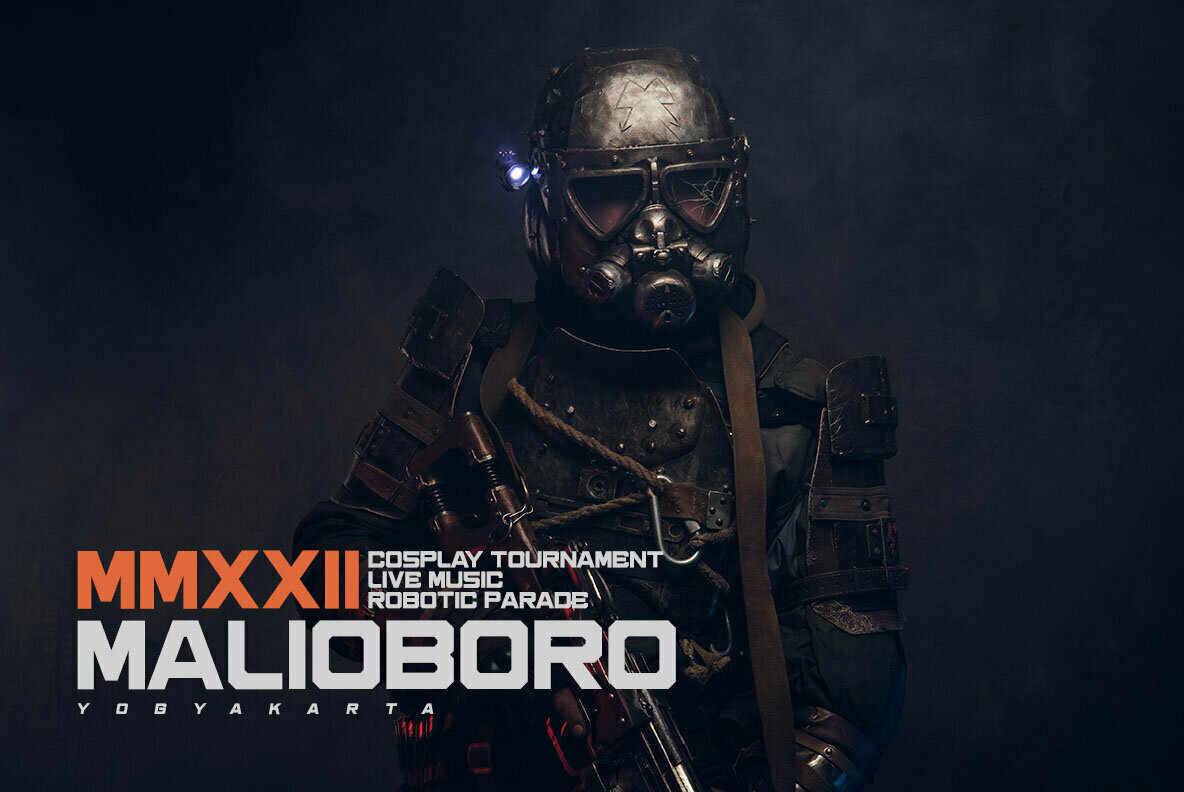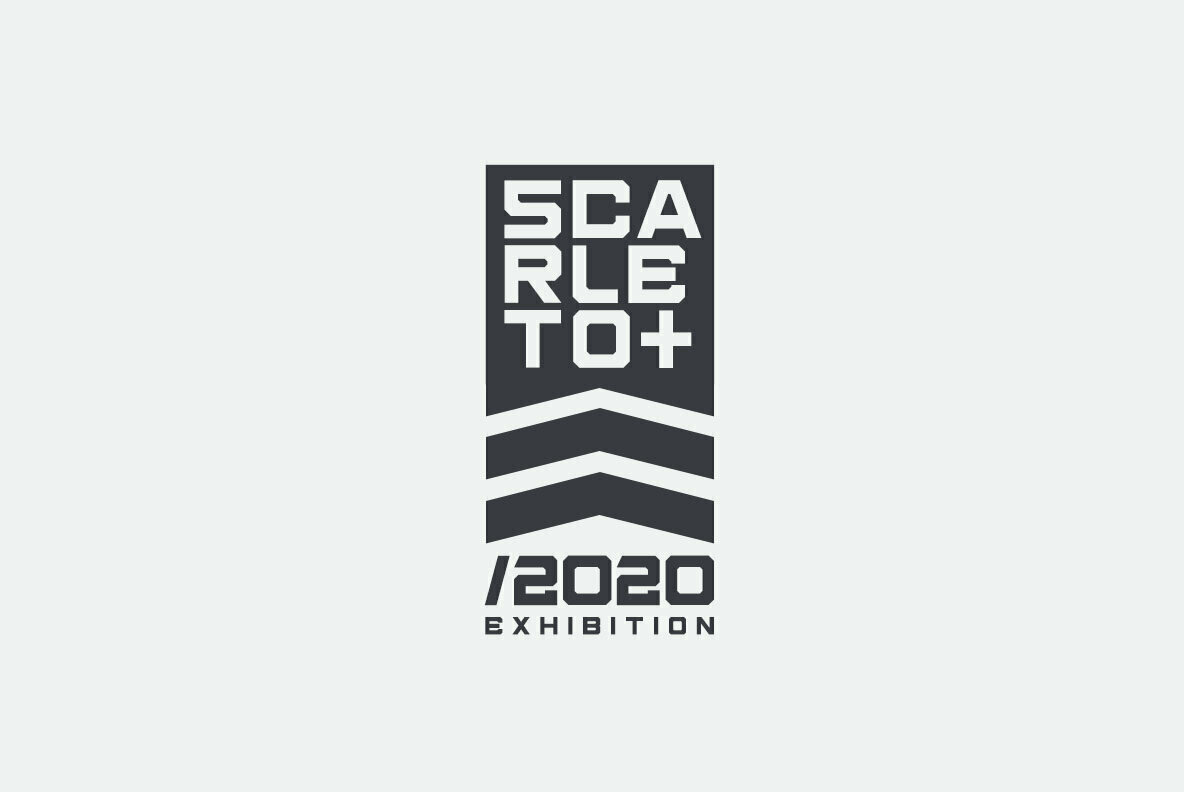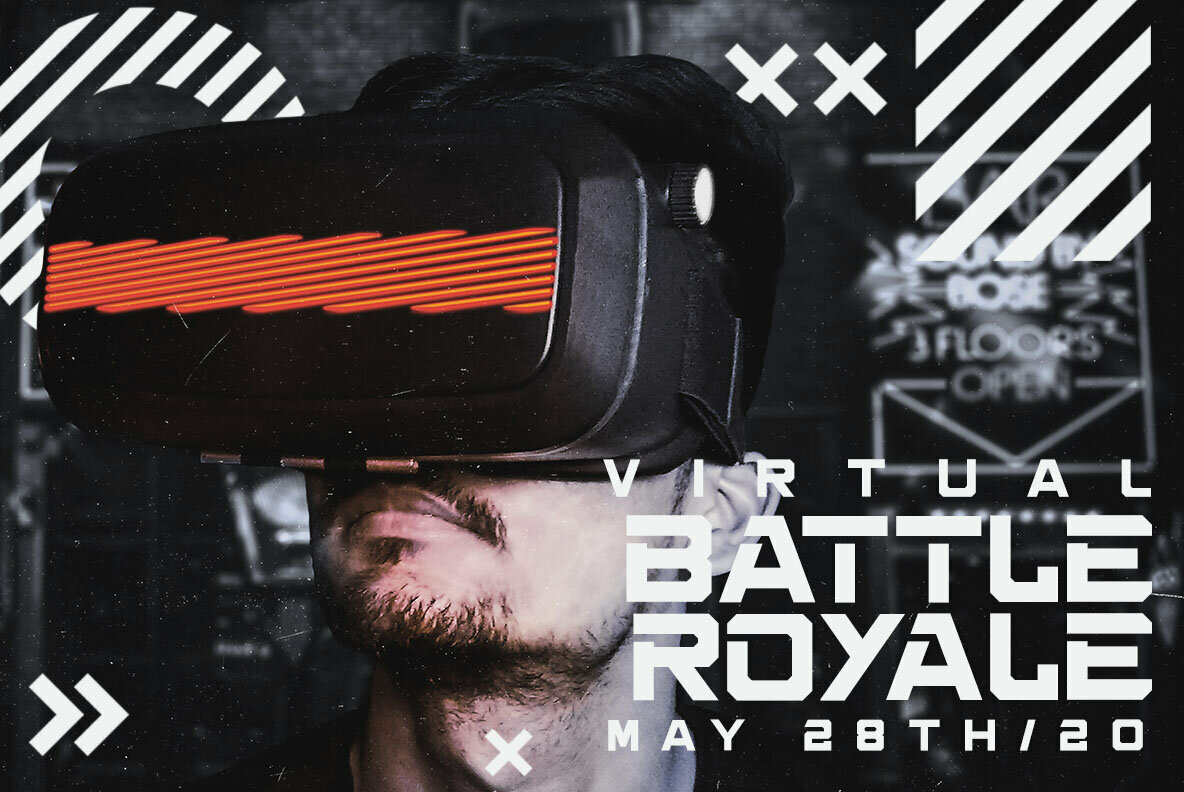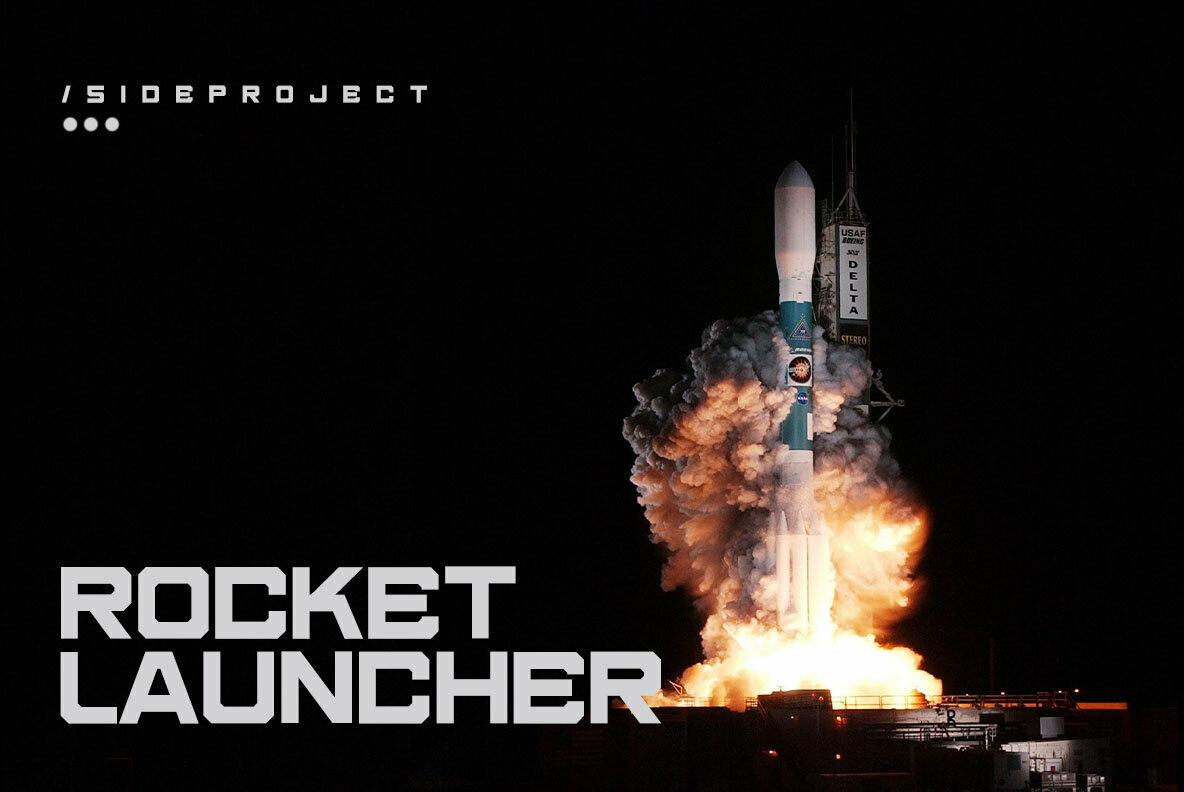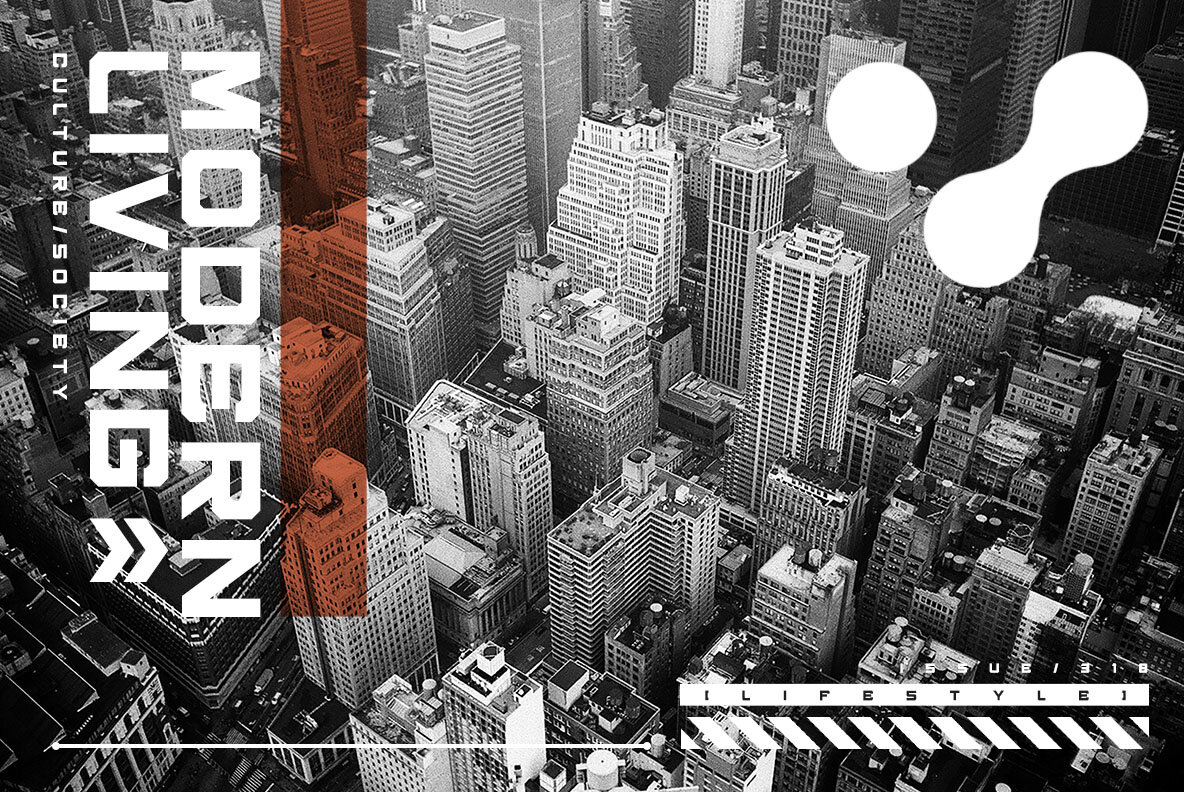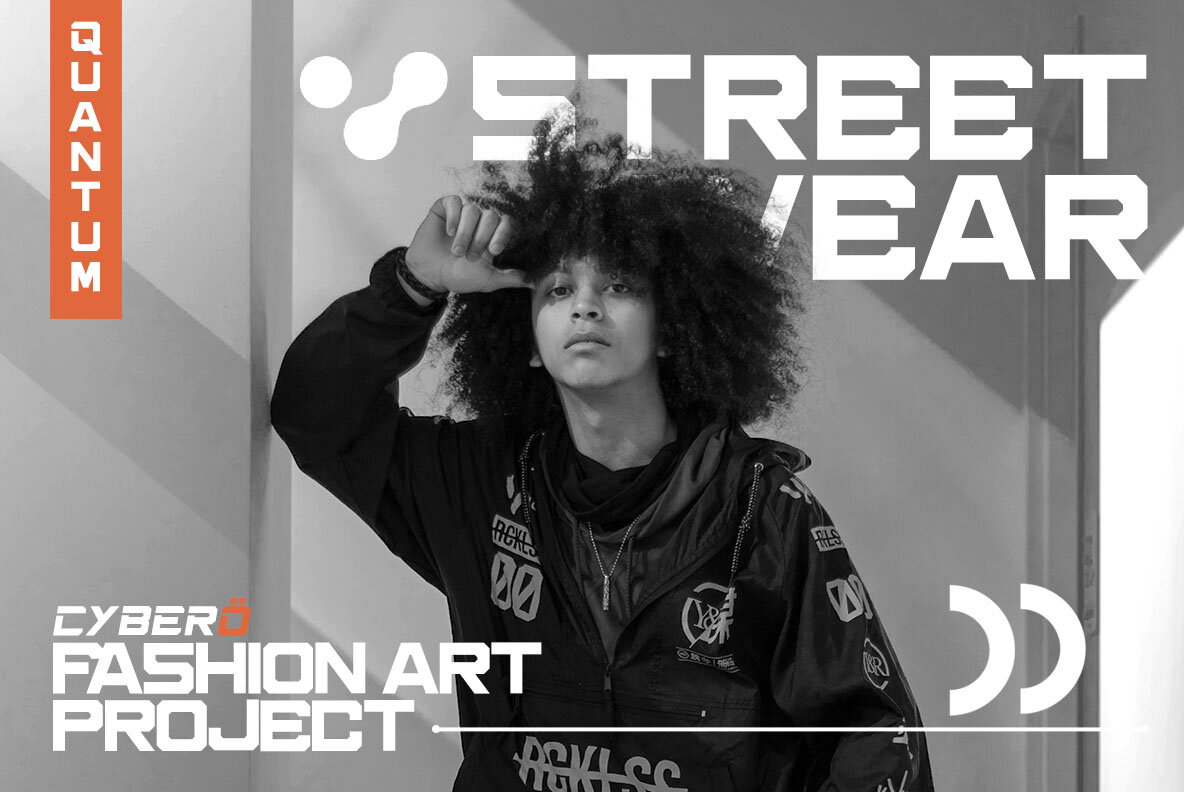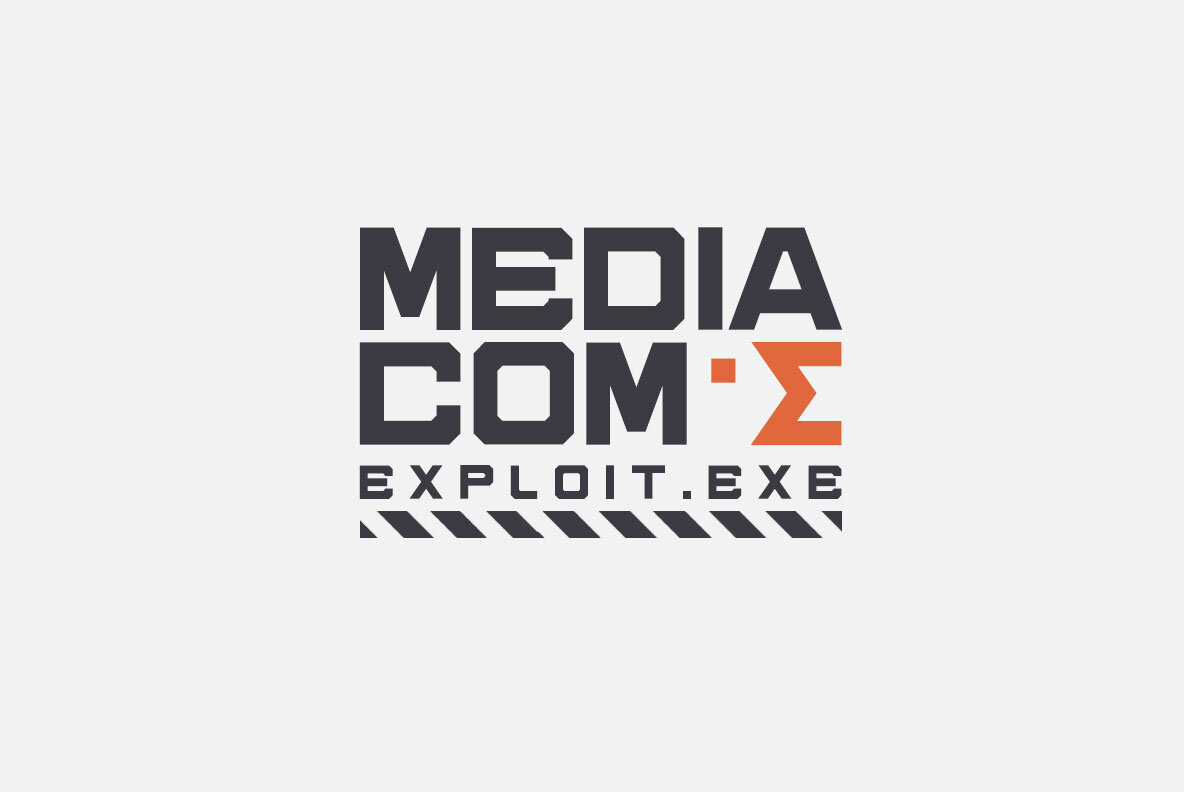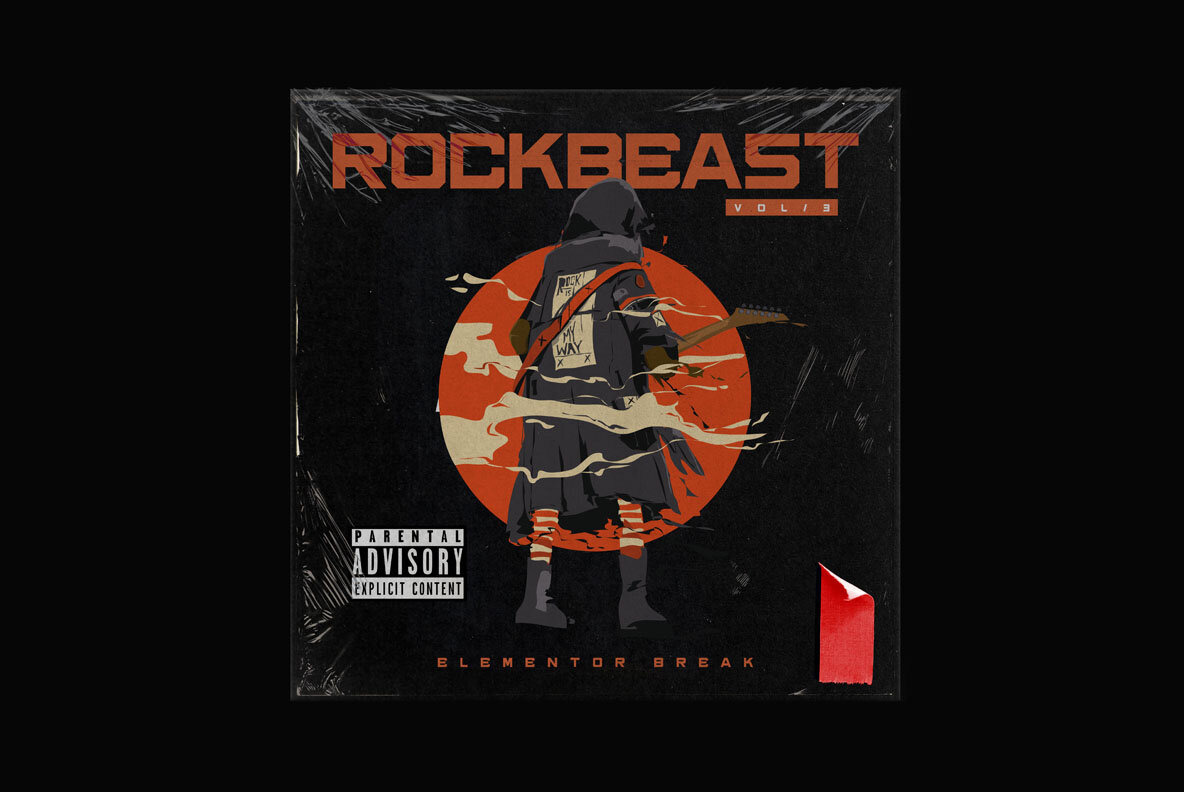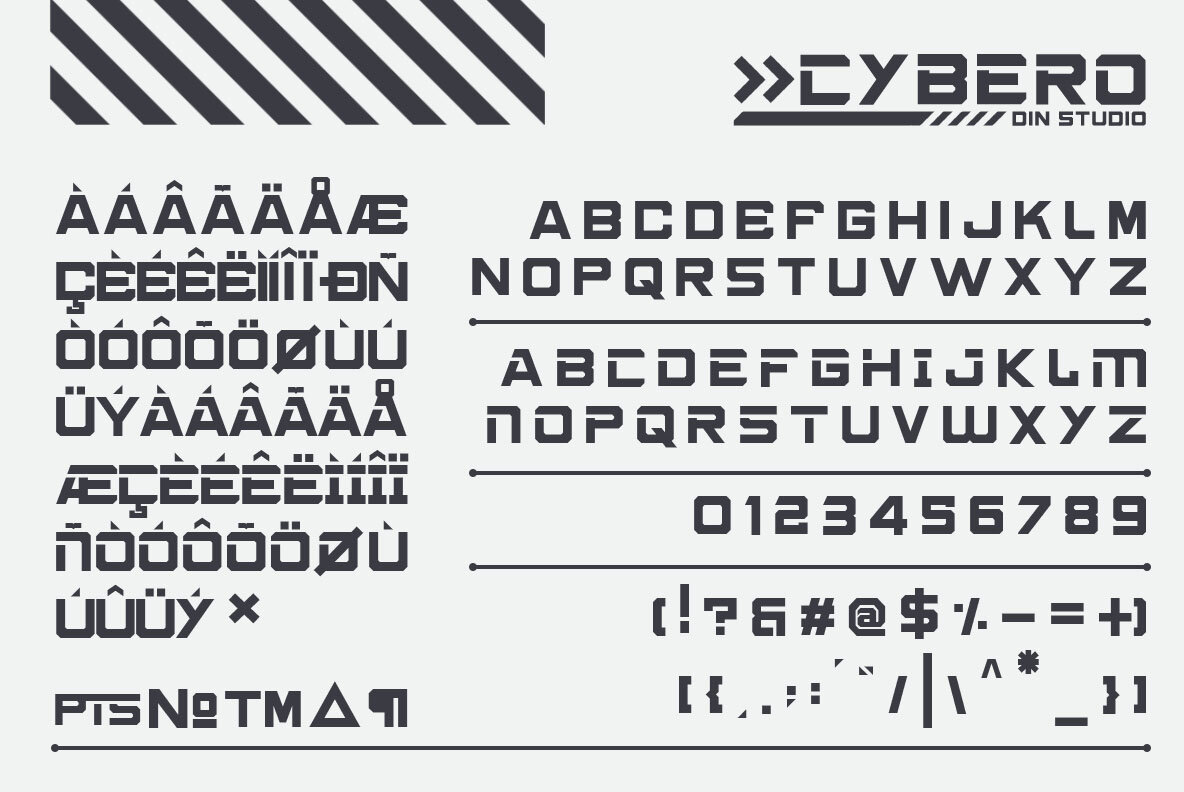
Cybero Font
Cybero
Cybero is a bold and authentic display font. It celebrates abstract shapes in all their eclectic beauty. This font will look truly outstanding in a wide range of contexts.